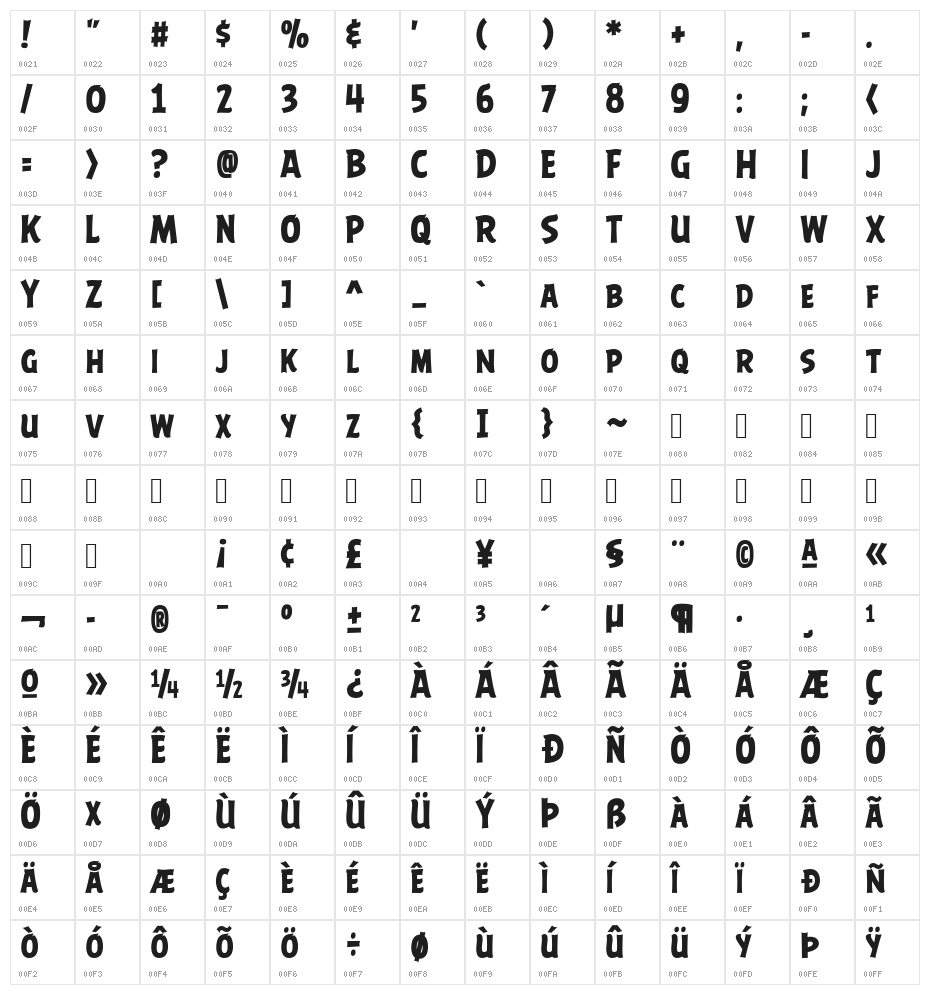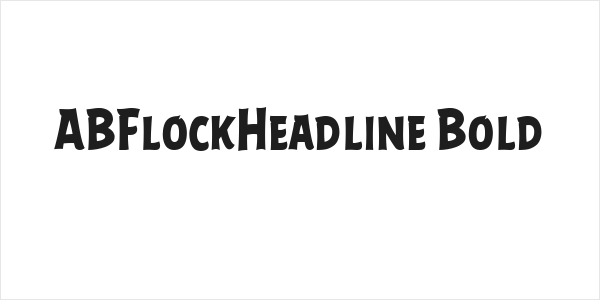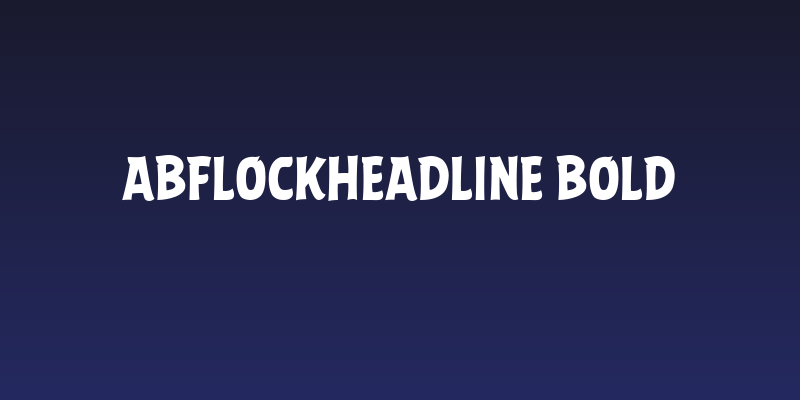
ABFlockHeadline Bold Font
ABFlockHeadline Bold Description
This font features bold, dynamic characters with a playful and energetic style. The letters are slightly irregular, giving them a hand-drawn appearance that adds a sense of movement and personality. The strokes are thick and consistent, providing a strong visual impact. The overall design is modern and eye-catching, making it suitable for attention-grabbing headlines or creative projects. The numbers and special characters maintain the same boldness and style, ensuring consistency across different uses.
| Proposed Projects | Ideal for headlines, posters, branding, and any project requiring a bold, lively typeface. |